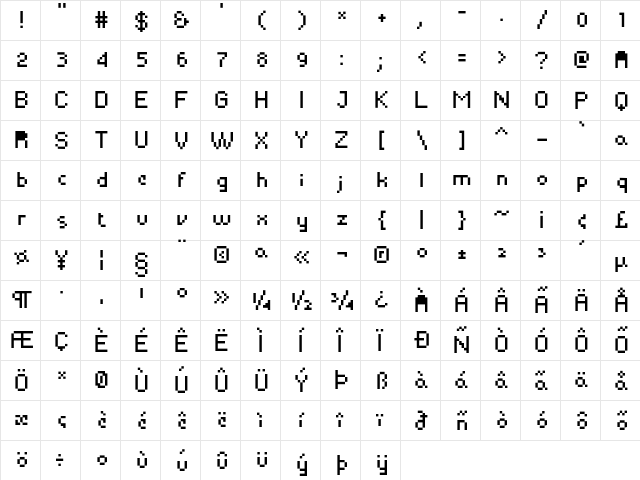
Yapix Regular
| Foundry | Fabiane Lima |
| Designer | Fabiane Lima |
Design Context for Yapix Typeface
Yapix offers clean, dependable letterforms without strong stylistic allegiance, making it a practical choice for designers who need flexibility.